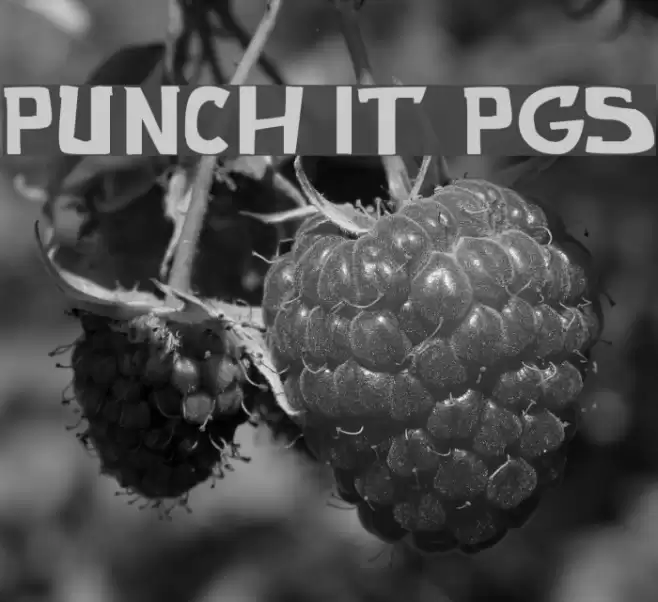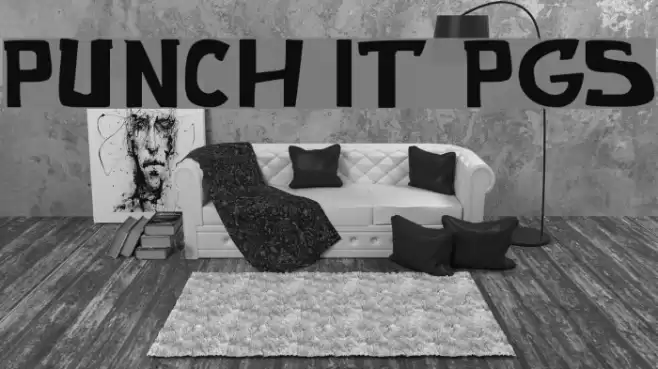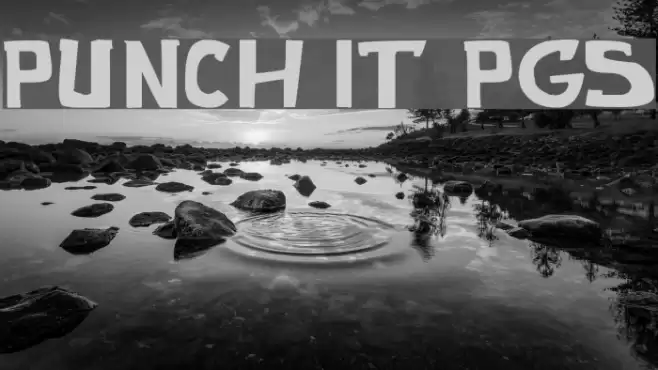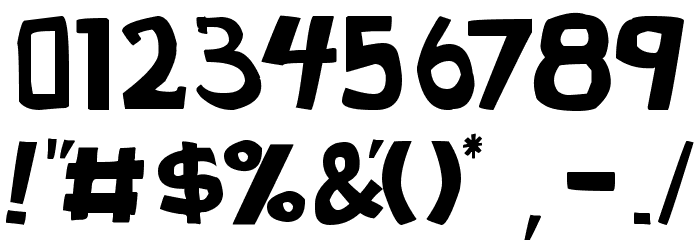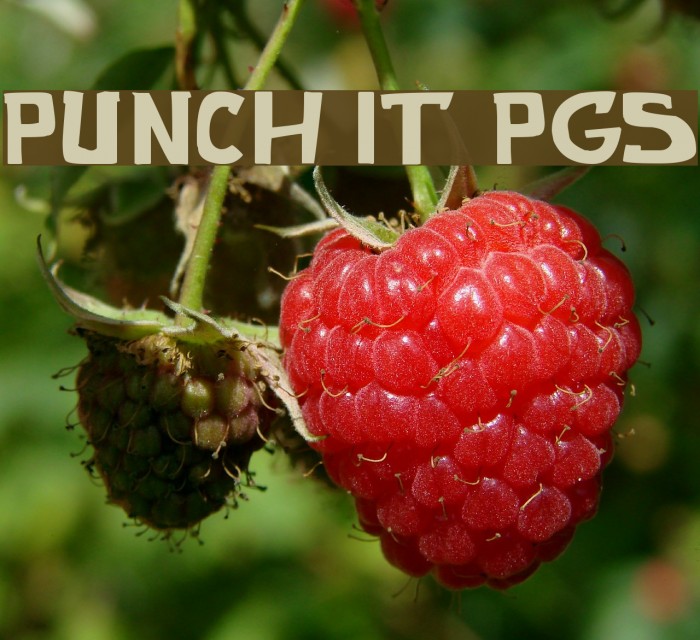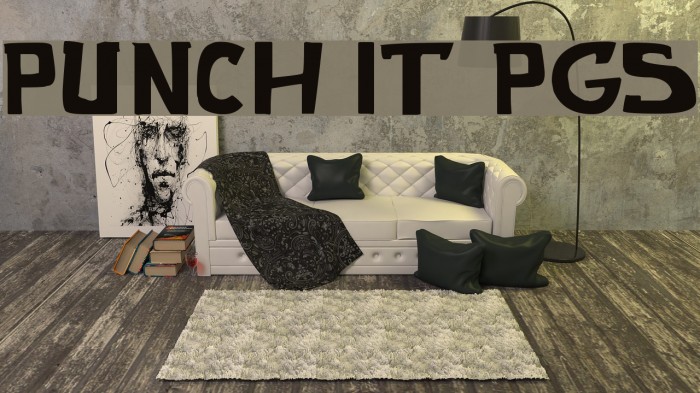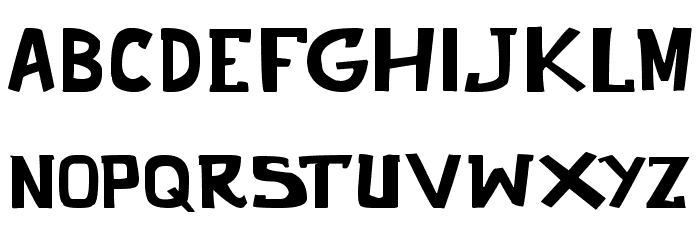
punch it PGS Font
punch it PGS Description
This font features a bold and dynamic style with a slightly irregular and playful appearance. The characters are thick and robust, giving a strong visual impact. The uppercase and lowercase letters have a consistent weight, with a slight slant that adds a sense of movement and energy. The numbers and special characters maintain the same boldness, ensuring uniformity across all glyphs. The overall design is modern and eye-catching, suitable for projects that require a strong and distinctive typeface.
A bold, dynamic font with a playful and slightly irregular style from Comic fonts.
- Proposed Projects: Ideal for posters, headlines, branding, and any design that requires a strong visual impact.